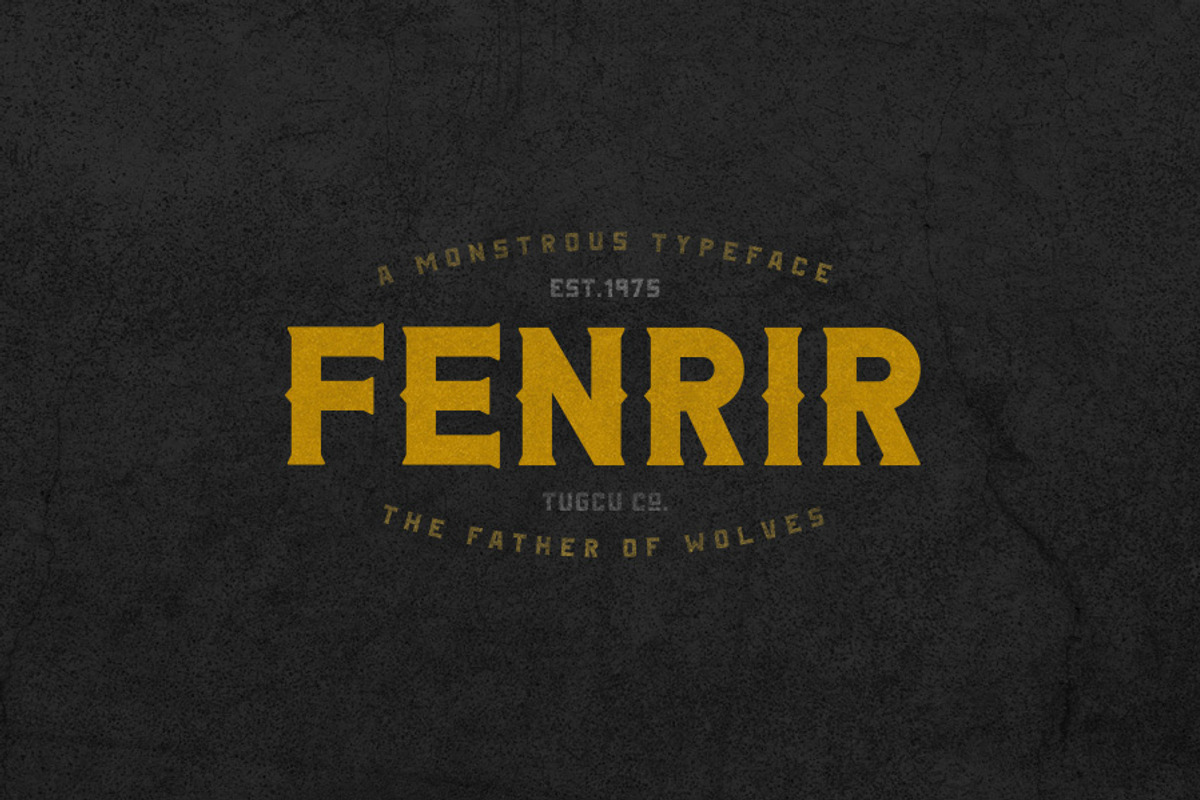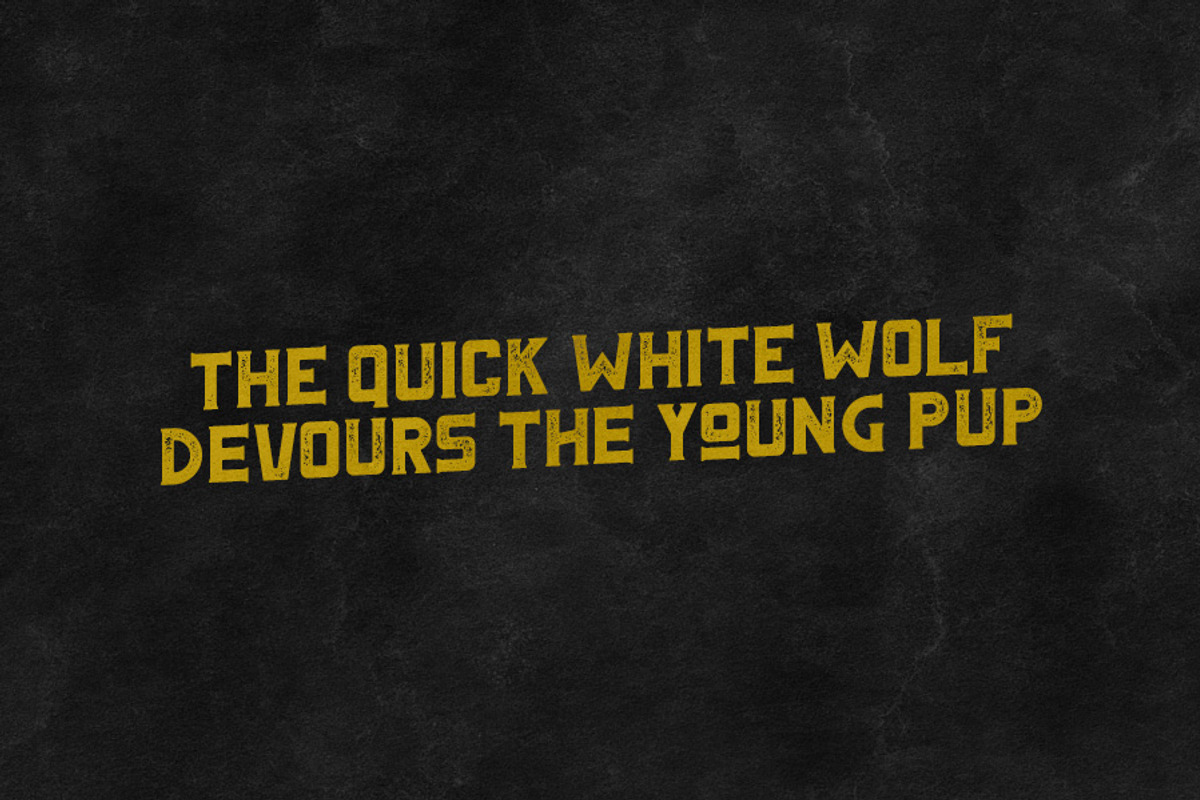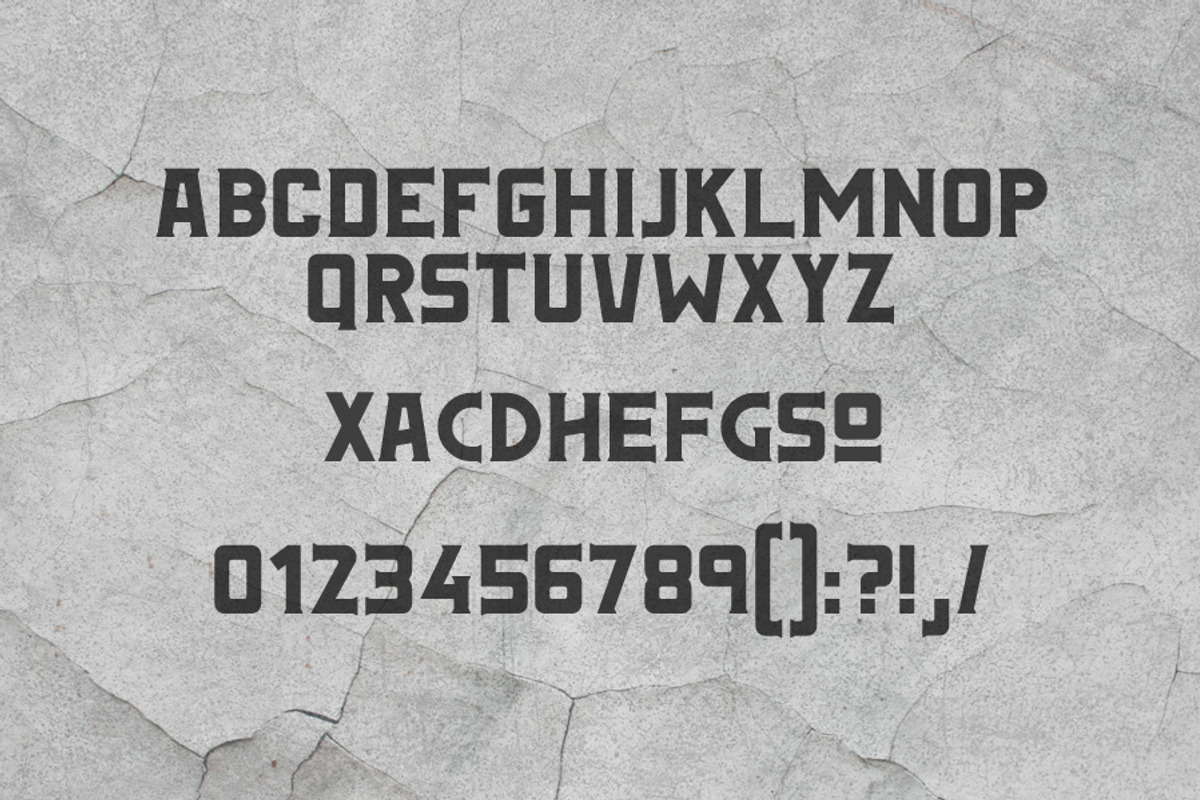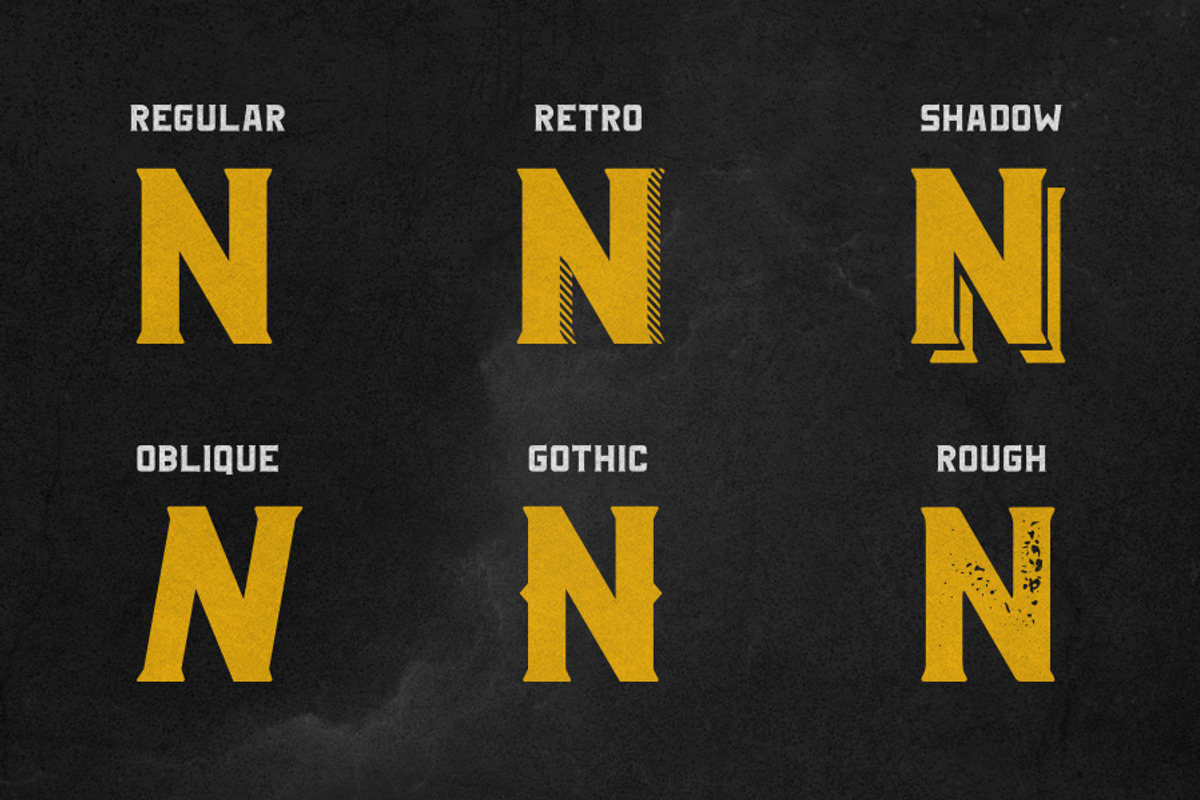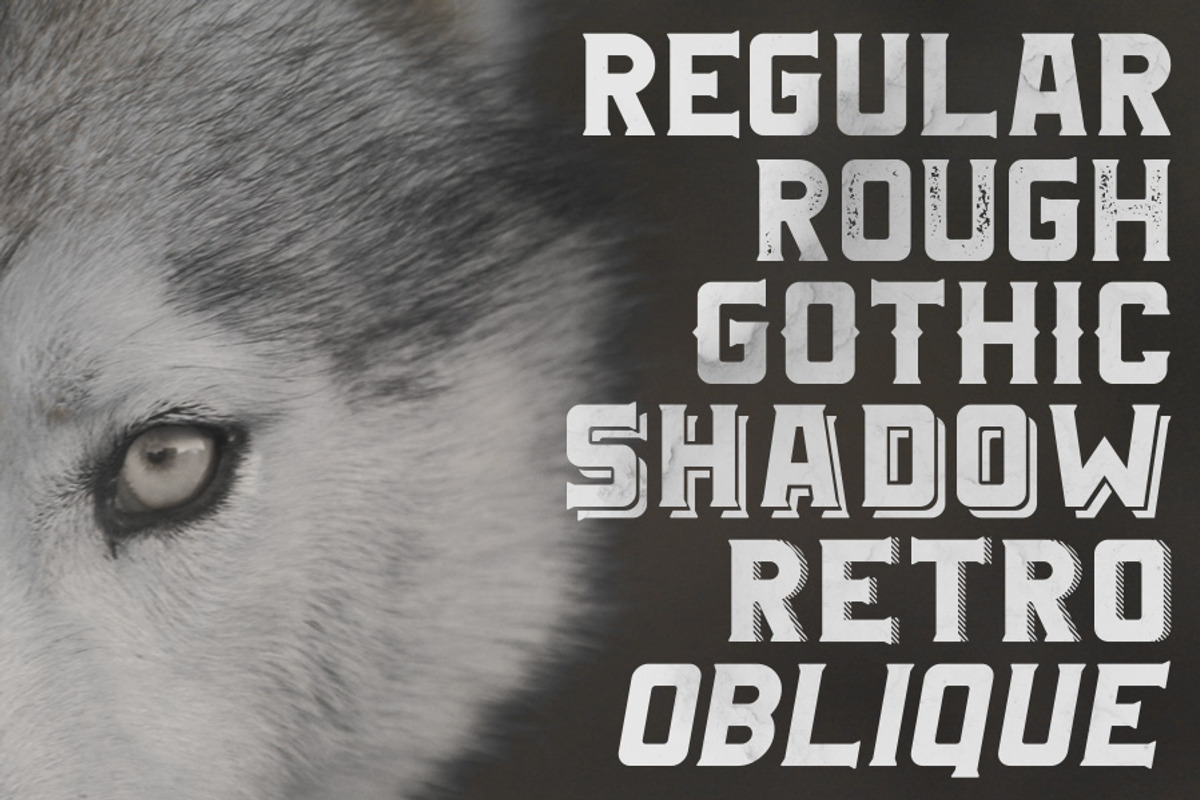
Fenrir Typeface
Fenrir Typeface by Tugcu Design Co. is a font selected for branding, posters, packaging, typography.
- It includes English uppercase letters, alternates, numbers and punctuation.
Why Fenrir Typeface is worth a look
Fenrir Typeface by Tugcu Design Co. fits naturally into Branding, posters, packaging, typography.